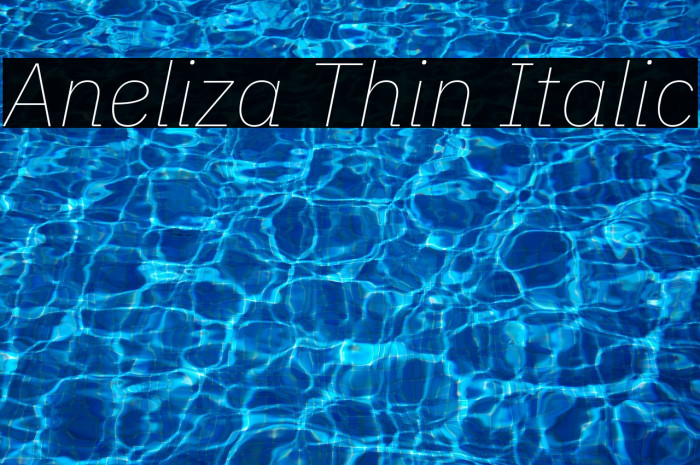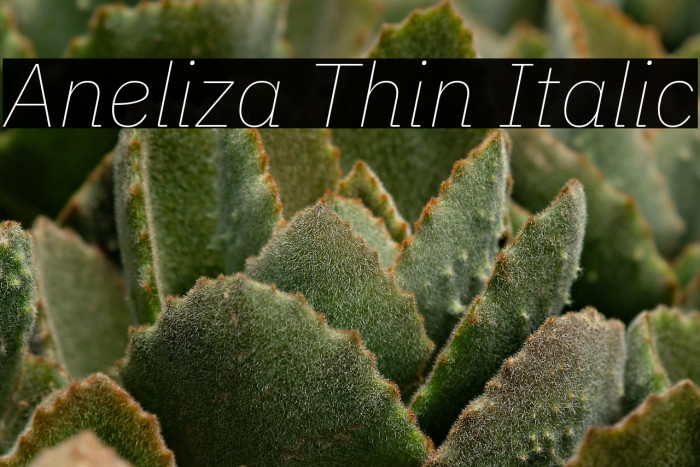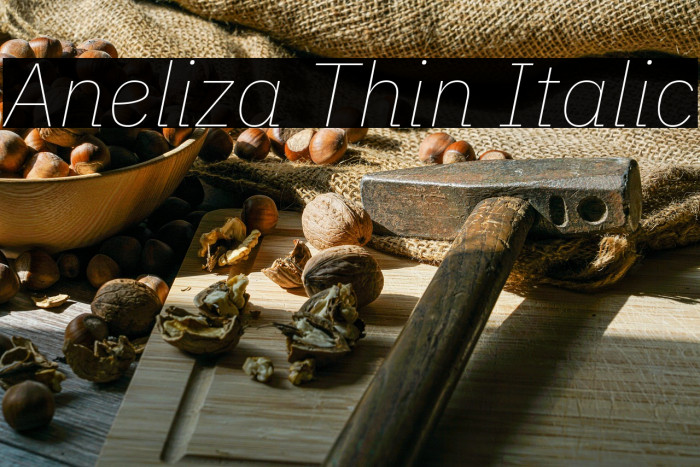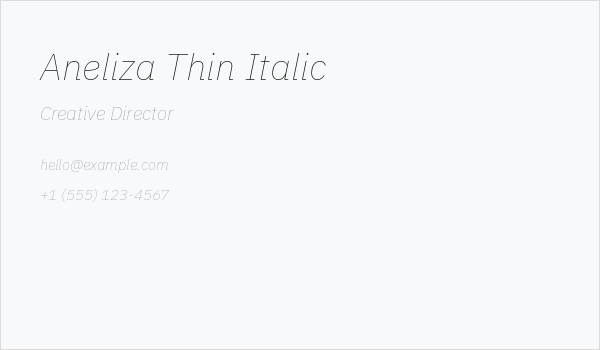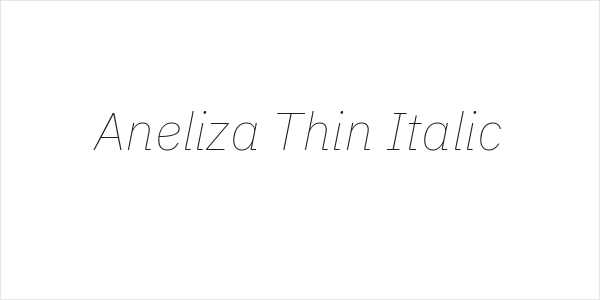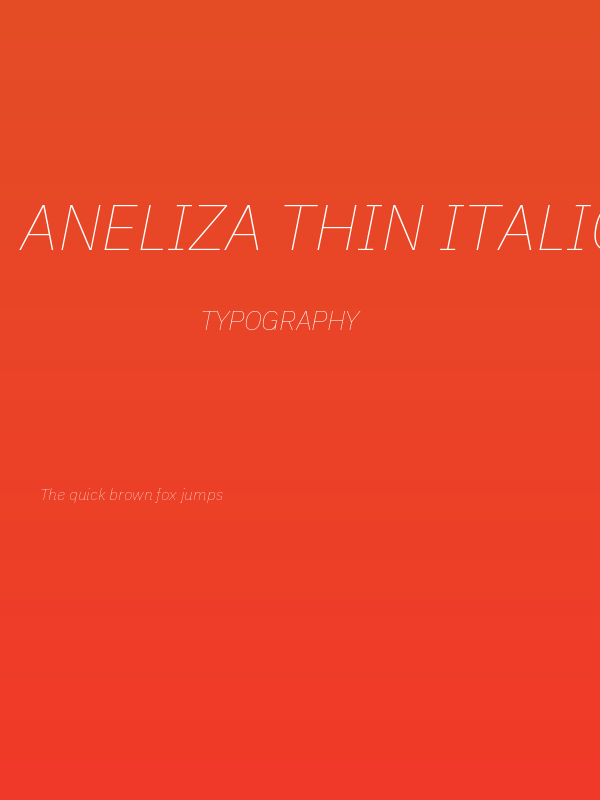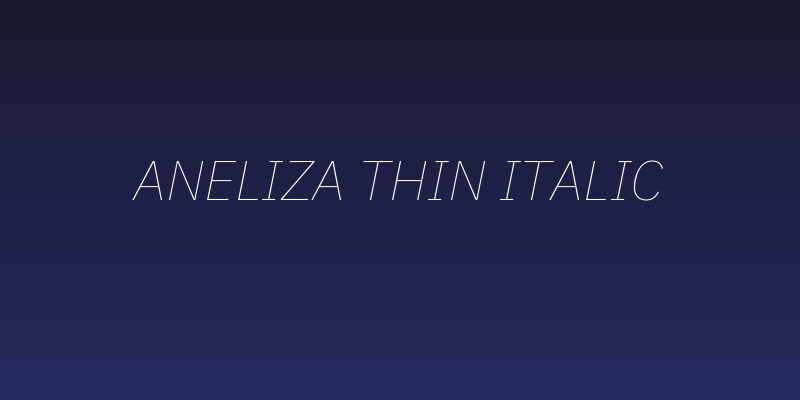
Aneliza Thin Italic Font
Aneliza Thin Italic Description
This font features a sleek and elegant design with a thin, italicized style. The characters are elongated and slightly slanted, giving a sense of motion and sophistication. The strokes are consistently thin, providing a delicate and airy appearance. The font maintains a modern aesthetic with clean lines and minimal embellishments, making it versatile for various applications. The spacing between characters is balanced, ensuring readability while maintaining its stylish look. This font is ideal for projects that require a touch of elegance and modernity.
| Proposed Projects | Ideal for fashion magazines, luxury branding, elegant invitations, and modern web design. |